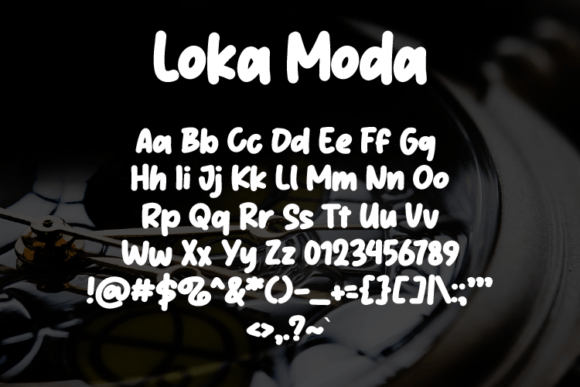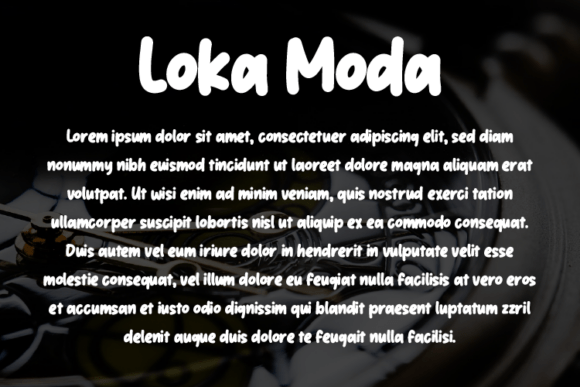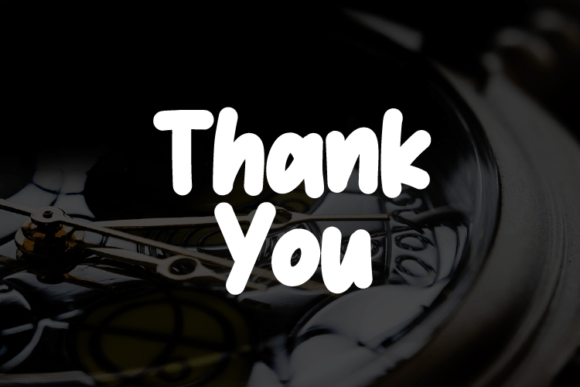
Introduction to Loka Moda Font
Loka Moda is a stylish and authoritative font that balances a bold visual presence with a modern, hand-drawn character.
The typeface features thick, stable letterforms with soft, rounded terminals and a strong vertical axis While it maintains a clean and organized structure, the subtle irregularities in its character widths provide a unique, artisanal touch.